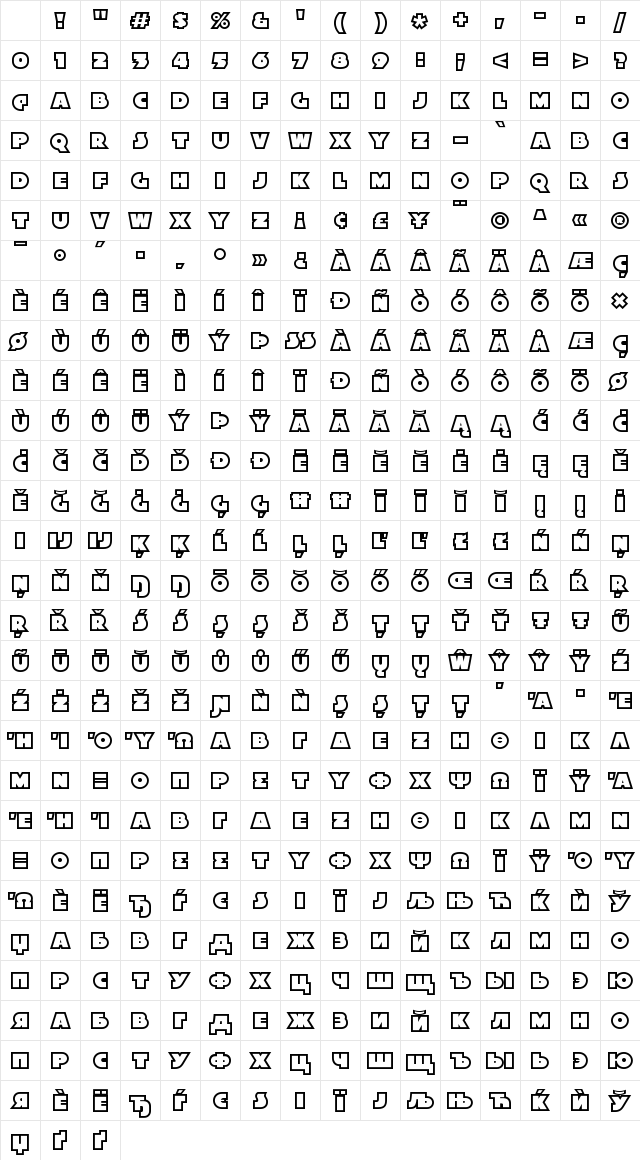
Complete Xylitol Outline glyph index. Displaying only characters natively supported by Xylitol Outline font.
Xylitol is built around its visual character rather than neutral utility - its distinctive forms are designed to make an impression at display sizes.
Font Pairing: Pair with a clean neutral sans-serif for body copy to let Xylitol's character lead without overwhelming the composition.
Pro Tip: Use Xylitol exclusively at display sizes - it was designed to be seen, not read at length. Let a neutral companion handle body copy.